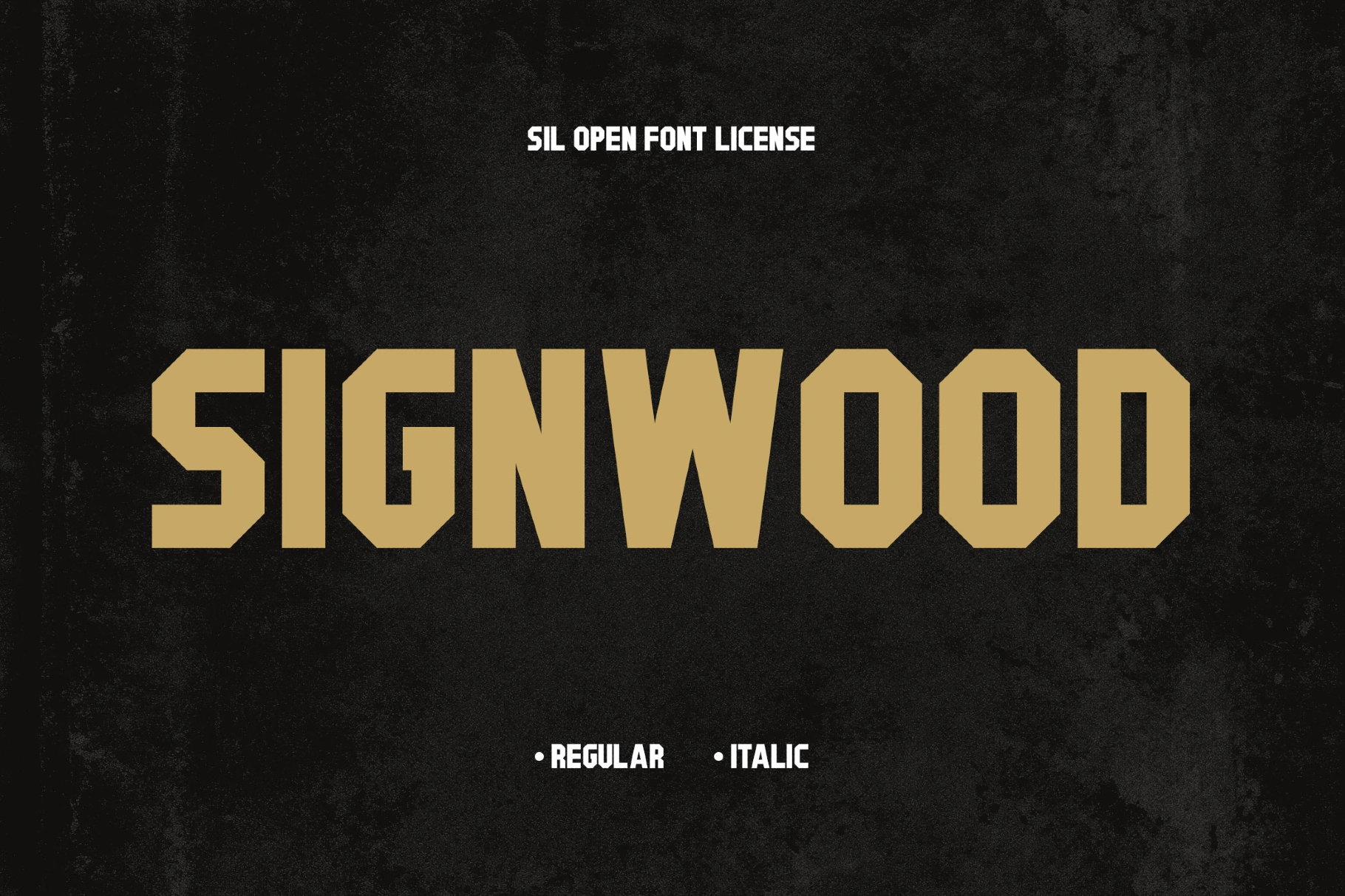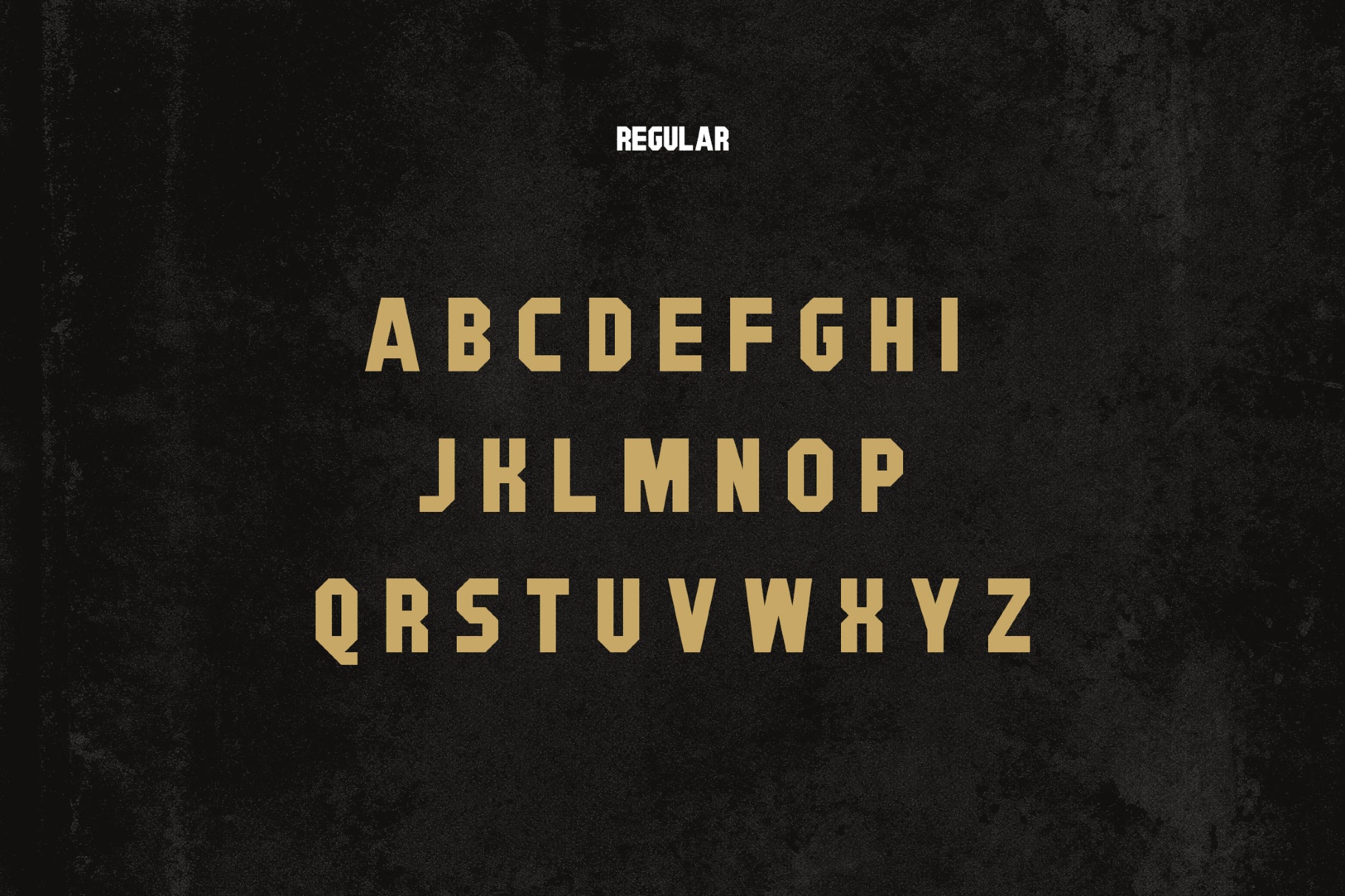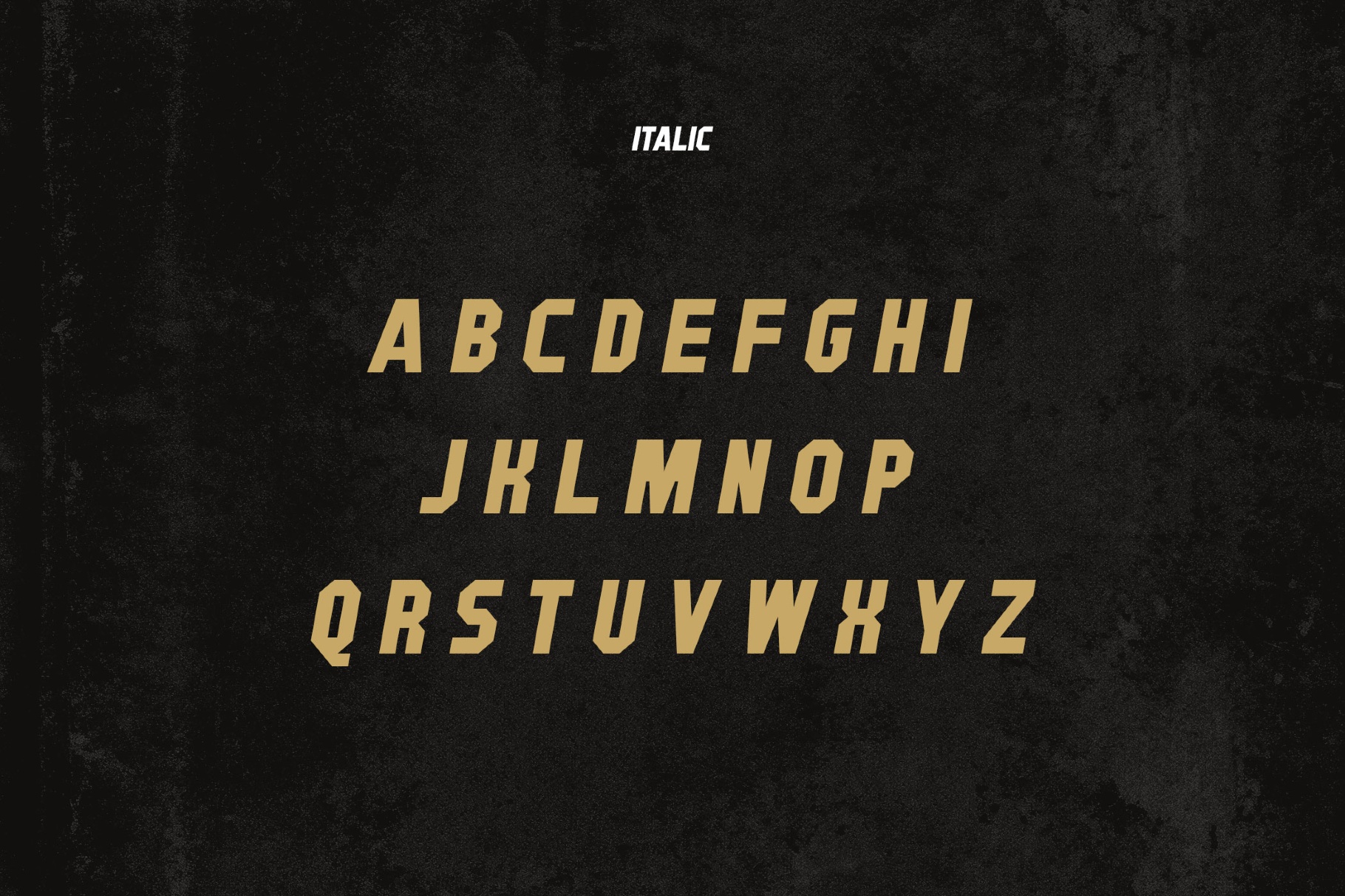
Signwood Font
This one cuts a chamfered block silhouette with varsity proportions. It draws from mid-century collegiate jacket lettering and widescreen action-movie title cards. The font suits sports identities, tournament posters, arena and street signage, game UI headers, trailer or podcast titles, product labels, and logo wordmarks.